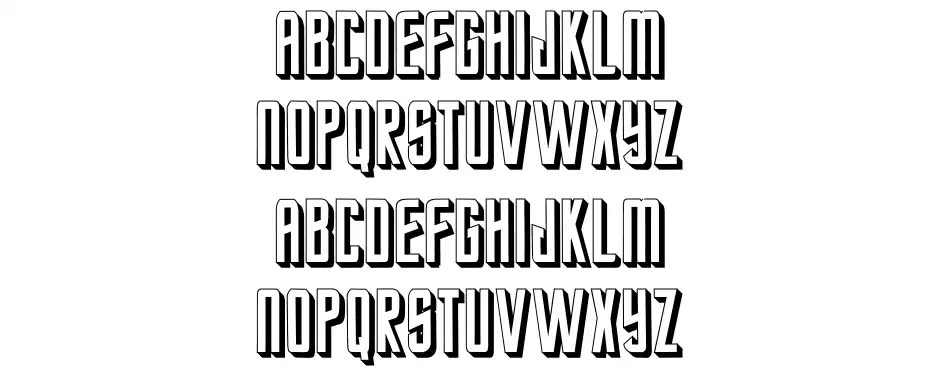
What Font Is Star Trek
What Font Is Star Trek. This font has 2 styles available (star trek future star trek enterprise future). By then the original movie logo had gone through several rounds of small tweaks, losing some of its charm in the process.
The undiscovered country, the sixth and final movie in the series featuring the cast of the original series. Its six most important tv series include: Download the star trek film bt free font.
Abrams based on a screenplay written by roberto orci and alex kurtzman and they were inspired by novels and graduate school dissertations. This particular font, based on starfleet bold extended bt / millennium, was designed by jeff yerkey and named in honor of matt. Be aware that the star trek font is free for personal knowledge and use only.
The Star Trek Wide Font Is Good For Titles As It Is Capitalized.
Free star trek fonts to take your designs to the next level and beyond. There is also a great video on youtube. Federation classic suggested by twentyoneg #2.
Its Mission Was ‘To Explore Strange New Worlds, Seek Out New Life And New Civilizations,.
Check Out Font Memes For The Various Fonts Used In The Tv Series, Such As Final Frontier Old Style By Allen R.
Jefferies Extended Has The Lettering Used In Star Trek: